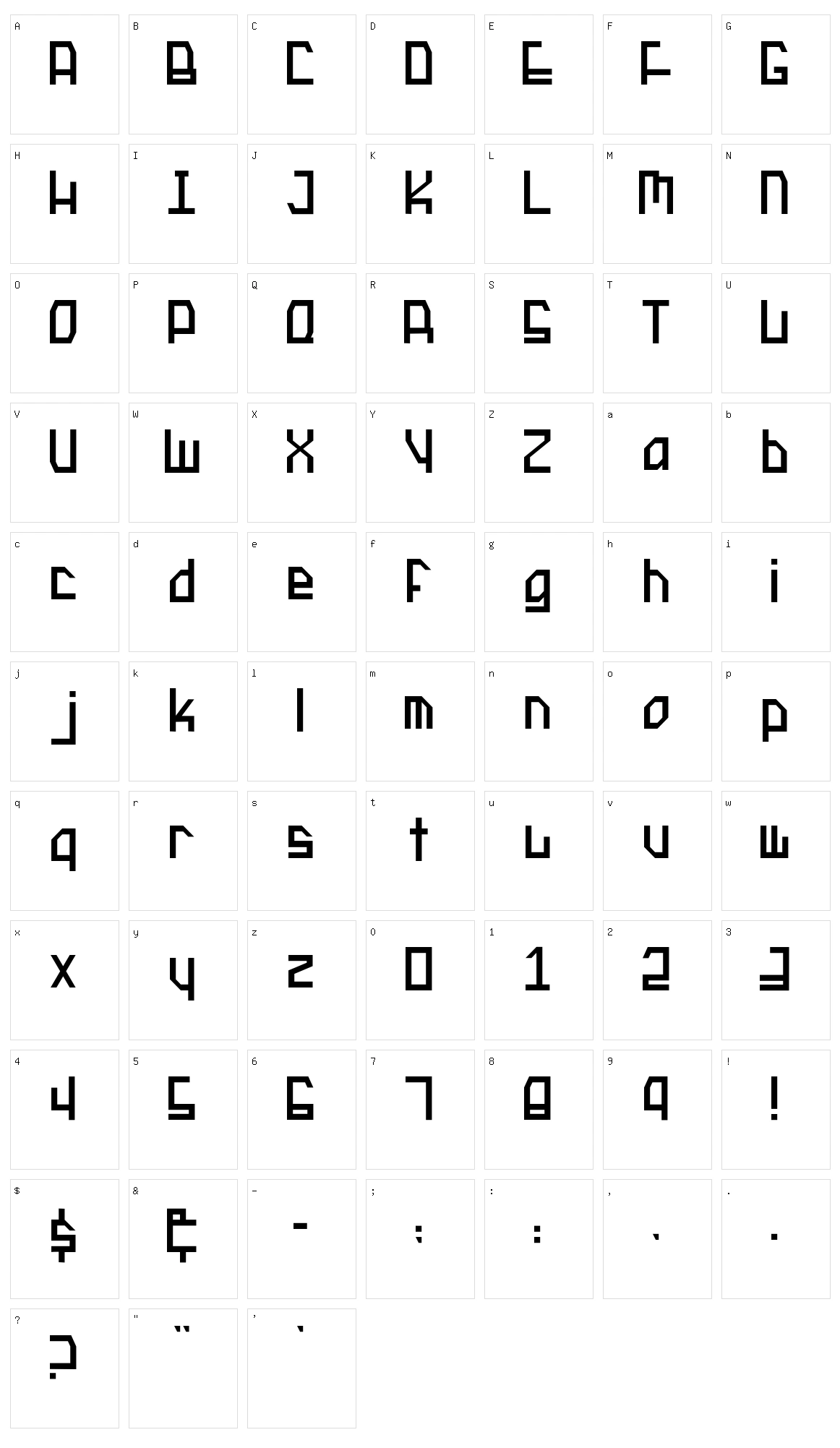
The free font Protocol Update is carefully designed by Yu Lee, showcasing a thoughtful balance of creativity and usability and falls under the Square font style. When you download the ZIP file, it contains only 3.78 KB of font files, making it lightweight and quick to download. Please review the license details below to understand permitted usage and distribution rights. If license information is not available, we recommend using this font for personal projects only or contacting the author directly for commercial usage permissions.